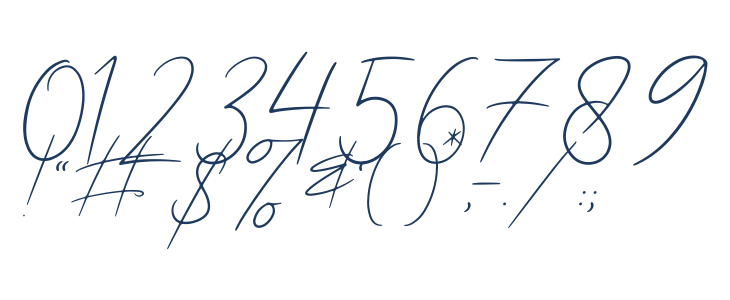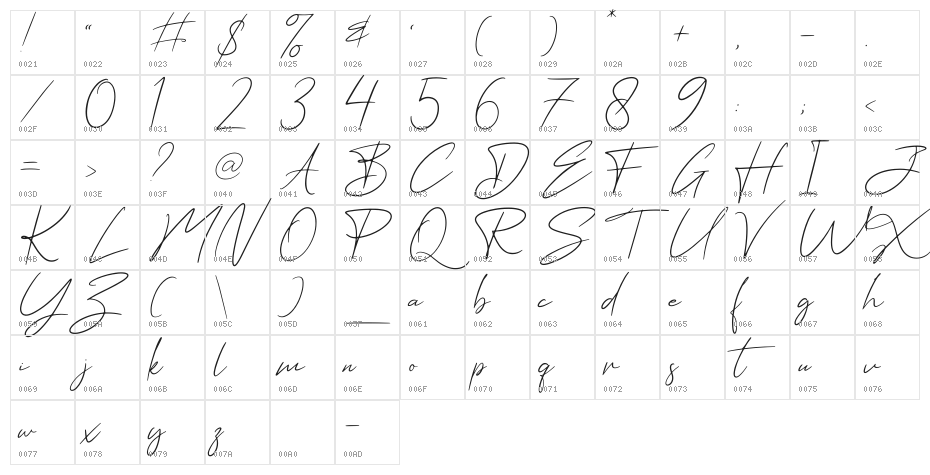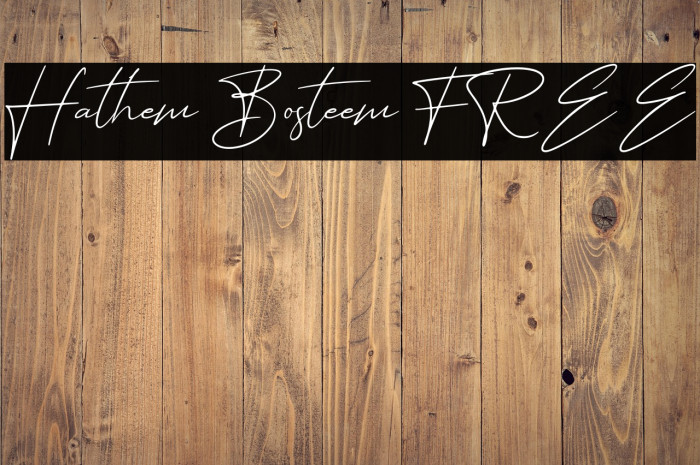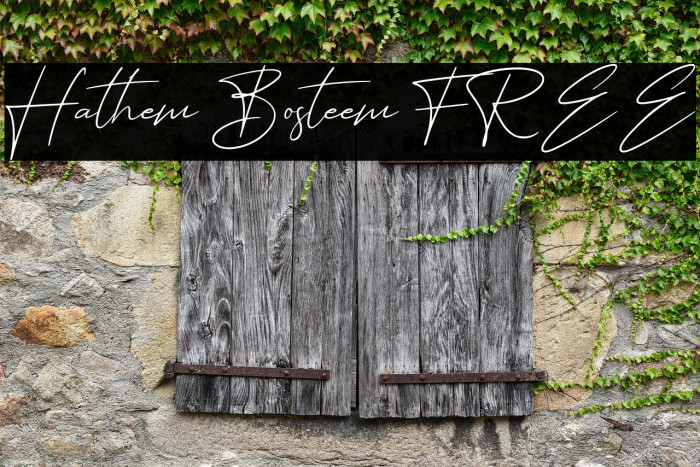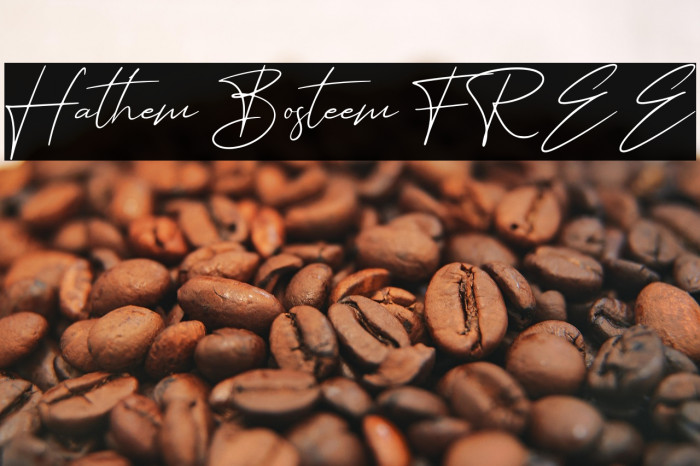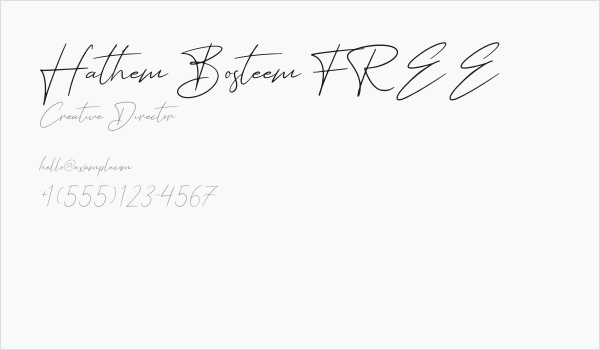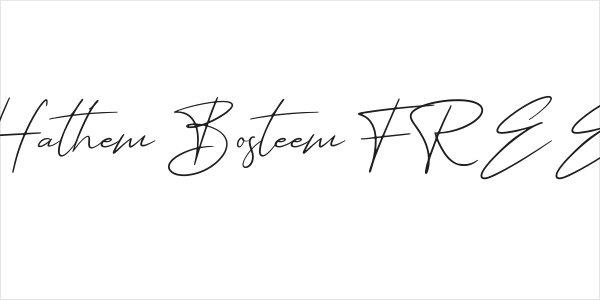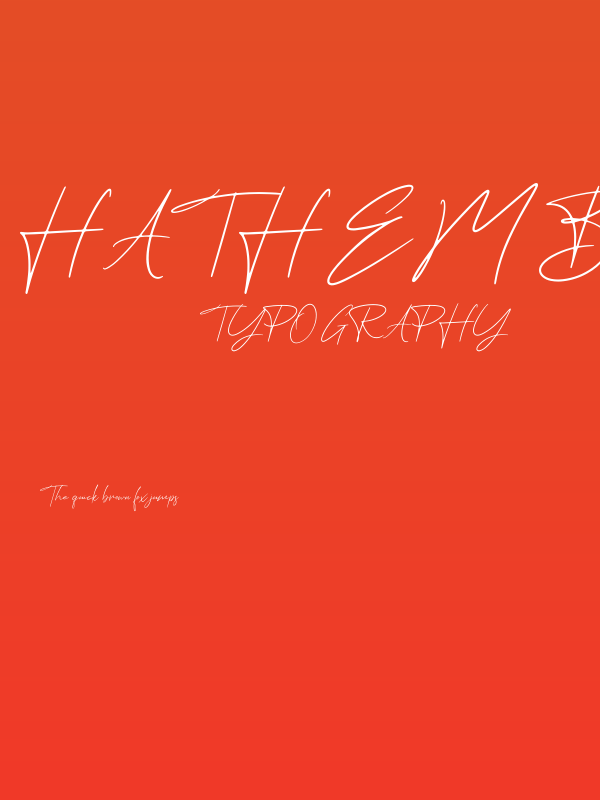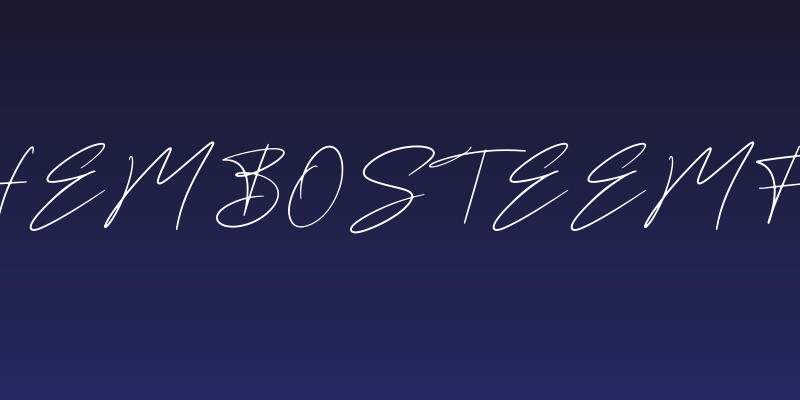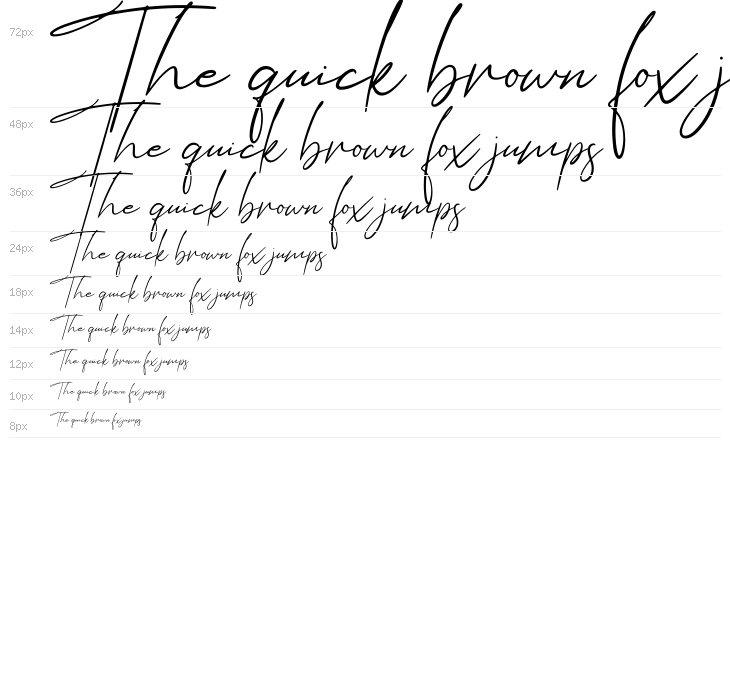
Hathem Bosteem FREE Font
Hathem Bosteem FREE Description
This font exhibits a fluid and elegant script style, characterized by its cursive, handwritten appearance. The letters are connected with smooth, flowing strokes, giving it a natural and organic feel. The uppercase letters are slightly more structured, while the lowercase letters maintain a consistent, flowing baseline. The numbers and special characters are designed to match the overall cursive style, ensuring a cohesive look across all characters. This font is ideal for projects that require a personal touch, such as invitations, greeting cards, or artistic branding.
| Overall Style | Elegant, Handwritten |
| Use Case | Logos, Invitations, Artistic Branding |
| Proposed Projects | Ideal for invitations, greeting cards, artistic branding, and personal projects. |